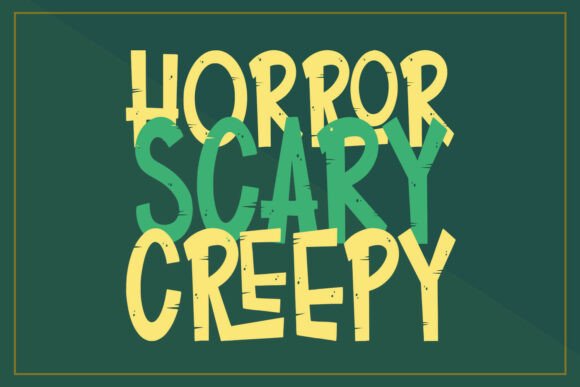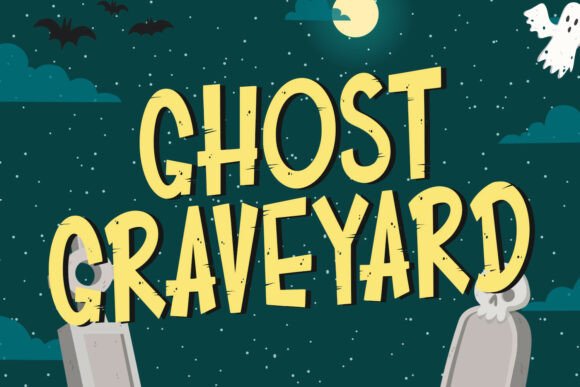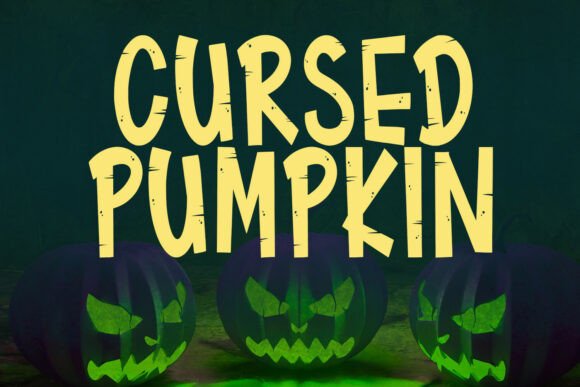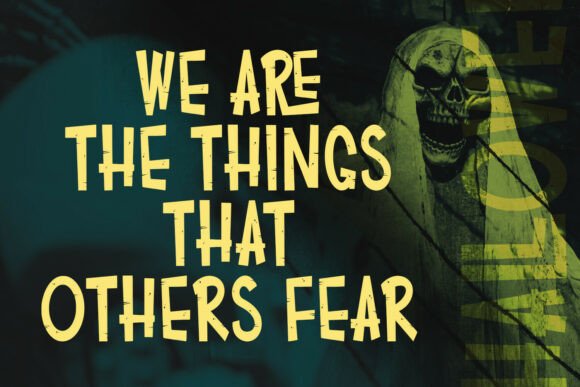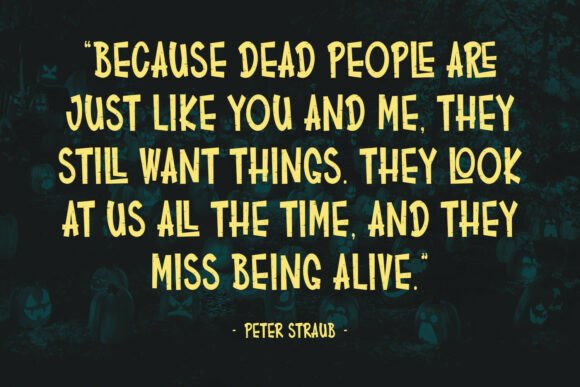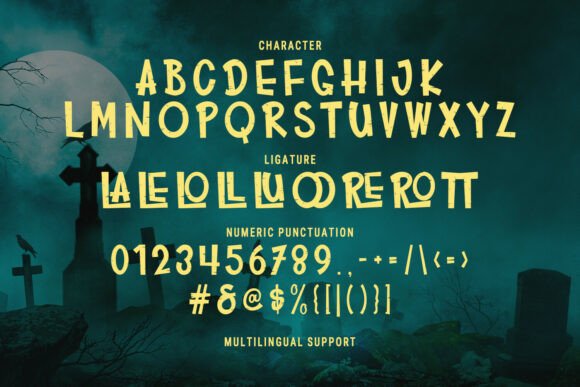
Introduction to Rolale Font
As a designer, you’ve probably found yourself in the midst of a creative project, staring at a blank page, searching for the perfect font to bring your vision to life. The search can be daunting, especially when you’re looking for something that exudes a spooky, playful vibe. That’s where the Rolale Font comes in – a hand-drawn, quirky horror display font designed to add a touch of characterful fright to your designs.
With its unique, wobbly strokes and irregular letterforms, Rolale Font is the ideal choice for designers who want to create high-quality, attention-grabbing designs that stand out from the crowd. Whether you’re designing a Halloween party invitation, a spooky book cover, or horror-themed merchandise, Rolale Font adds a level of sophistication and creativity that’s hard to find elsewhere.
Key Features of Rolale Font
- Includes a large character set, making it suitable for a wide range of languages and applications.
Honest Review: Rolale Font
I recently had the chance to work with the Rolale Font, and I must say it’s been a great addition to my design resource library. As a designer, I’m always on the lookout for high-quality fonts that can elevate my creative projects.
- ✨ The Rolale Font has a unique, modern aesthetic that’s perfect for a wide range of designs, from brochures to website headers.
However, I did encounter a few limitations while working with the Rolale Font:
- ⚠️ The font may not be as versatile as some other options, and it may not be suitable for more traditional or formal designs.
- ⚠️ Some users may find the font to be a bit too bold or eye-catching, depending on the design context.
Overall, I’m really impressed with the Rolale Font and would definitely recommend it to designers looking for a high-quality, modern font for their creative projects. With its unique aesthetic and transparent background, it’s a great addition to any design resource library.
The Rolale Font is ideal for creative projects such as logos, business cards, and brochures. You can also use it for presentations, social media graphics, and website designs. With its high-quality design and transparent background, the Rolale Font is a versatile design resource that can help you create stunning visual content.